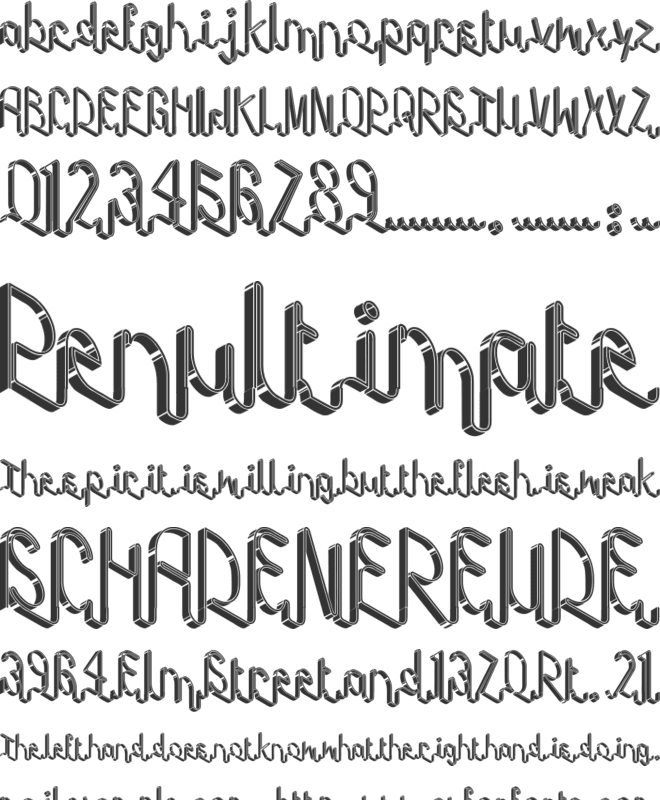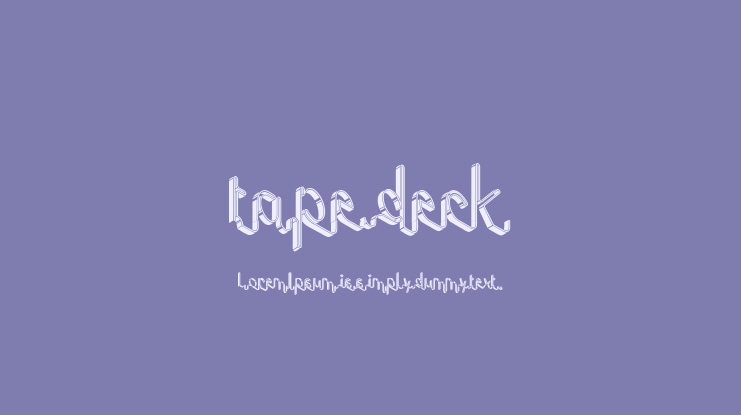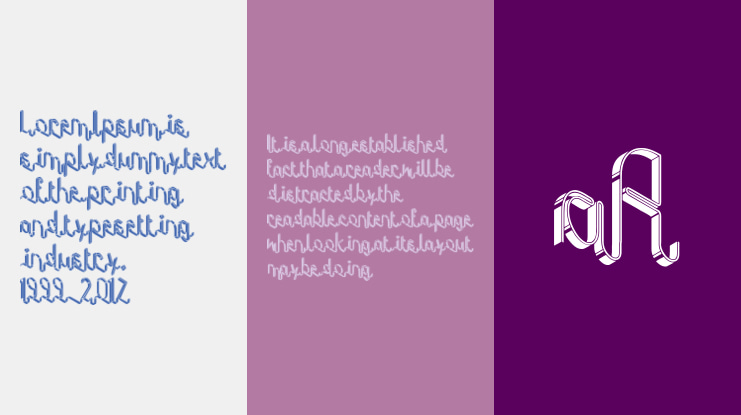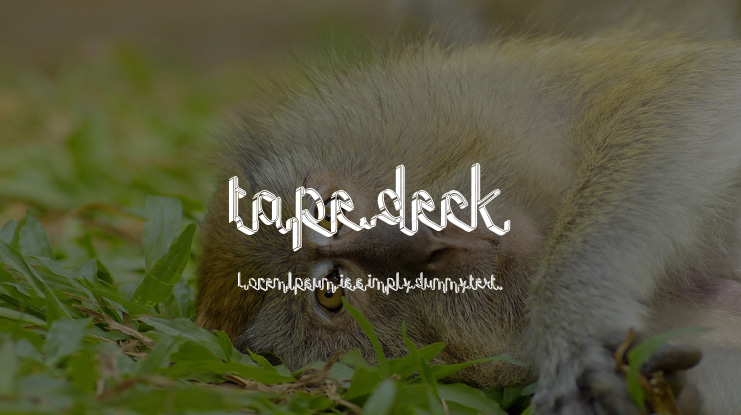
tape deck Font
This font was a real bitch to create because it required great precision in both the drawing and spacing of the individual characters to get them to join-up smoothly. The font creator I´m presently using (High Logic) doesn´t offer that kind of precision, so please excuse any mistakes I´ve made.
Use a comma at the beginning of a word or a hyphen between words for a nice flourish.